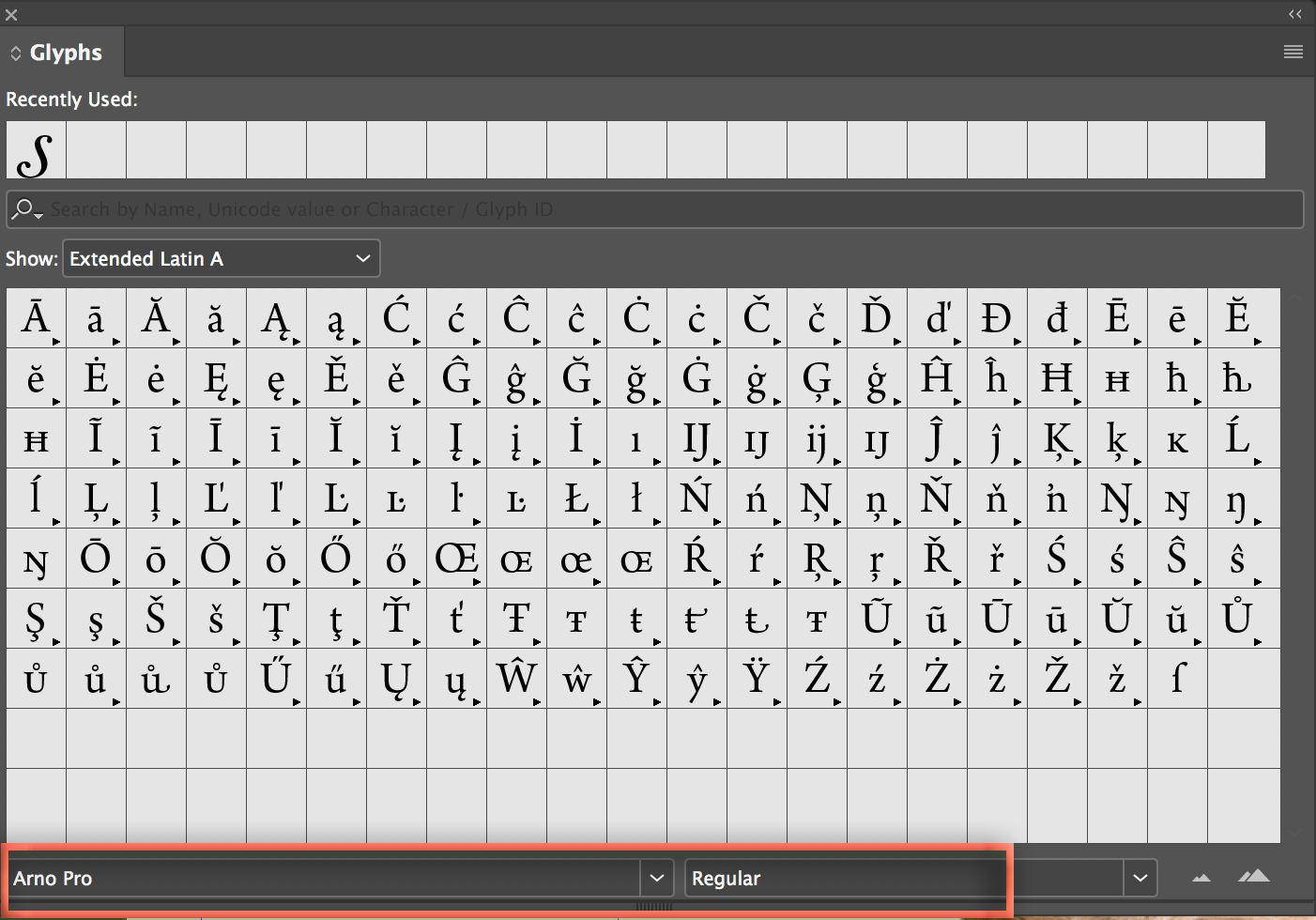
My question concerns the arno pro typeface. We would like to use this typeface in one of our publications. Not only would we like to use but also we would need to edit the font to have diacritical marks. So, how do we go about, firstly, do we need to purchase this font? Secondly can adobe provide us with the arnopro font with diacritics?
As Bob says, for a single purchase I doubt Adobe is going to do this for you.
Check out IndyFont, though: Indiscripts :: IndyFont | Build OpenType Fonts from within InDesign!
With IndyFont, you can create a new font just for the glyphs you need, constructing them yourselves.
So you can stick with Arno, and hvae another font that provides the necessary accented glyphs.
There may be a problem with kerning if you do it this way, though. Since these will be 2 different fonts, any kerning pairs built in
It's indeed not an InDesign related question, but still:
firstly, do we need to purchase this font?
Uh. "Yes"? (Unless I'm missing something? It's not really a free font.)
..o we would need to edit the font to have diacritical marks.
Arno Pro already contains lots of diacritics. See the character map at https://www.fonts.com/font/adobe/arno/complete-family-pack
Editing a font is usually explicitly not allowed. Adobe is one of the few font providers that does allow it under certain circumstances, but every font comes with a EULA (End User License Agreement) and you should read that very carefully.
A possible workaround is to use Arno Pro as-is (you still have to buy it first) and using a tool such as my own IndyFont to create a font containing just the diacritics that are not in Arno itself. Depending on how you are using the font, you may need to insert each diacritic 'manually', or you may be able to utilize a GREP Style, which transparently would switch the font where needed.
Arno Pro might be part of Typekit, in which case if you have a subscription to creative cloud, it would be included in the price of your subscription.
Unfortunately, and fairly typically, Typekit makes only a small subsection of the complete Arno Pro family available for syncing, which is the license you need if you will be producing printed matter.
For some reason, it seems to make available the entire family (of over 30 typefaces) available for web use, but who on earth needs optical sizes for web? Screen resolution is not really adequate to display the subtle differences involved, except perhaps between the extreme Display and Caption sizes!
So the answer is that if you need this for web, you're okay with what comes with Typekit as part of your Adobe subscription.
But if you need Arno for print, Typekit provides only the 4 basic weights -- regular, italic, bold, and bold-italic! Which is absurd: It clearly should be the other way round: For web, those 4 weights are probably adequate, but for print, you should have all 32!
We wish to use Arnopro for print. We are going to print a book which contains much Romanized Sanskrit text. Arnopro gives us the aesthetic appearance which we need, however it does not contain some of the diacritical marks for Romanized Sanskrit which we require. So, a few further questions:
1) Would there be another font which looks very similar to Arnopro or any other font you would recommend for a scholarly book and which would contain all the diacritical marks that we need for Romanized Sanskrit? These would be the following characters:
1. existing glyphs/diacritics: ñ ā ī ś ū
2. What we need: ḍ ḥ ḷ ḹ ṁ ṅ ṇ ṛ ṣ ṝ ṭ (Including capitals of course)
2) Alternatively, if we were to purchase a full license to use all 32 weights of Arnopro, would it be possible for Adobe to modify the font to add our requirements (diacritical marks)? Or, would it be possible for us to legally modify the font ourselves for print?
Adobe is certainly NOT going to do this for you. Your best alternative is pick another font that has all of the glyphs you need.
As Bob says, for a single purchase I doubt Adobe is going to do this for you.
Check out IndyFont, though: Indiscripts :: IndyFont | Build OpenType Fonts from within InDesign!
With IndyFont, you can create a new font just for the glyphs you need, constructing them yourselves.
So you can stick with Arno, and hvae another font that provides the necessary accented glyphs.
There may be a problem with kerning if you do it this way, though. Since these will be 2 different fonts, any kerning pairs built into Arno won't apply with your custom-made glyphs.
It is available on Typekit—with my subscription some variations are free and others require a purchase. Arno Pro (free for me) seems to have plenty of diacritics.